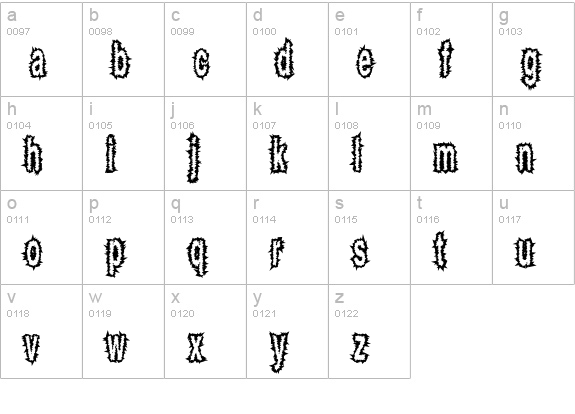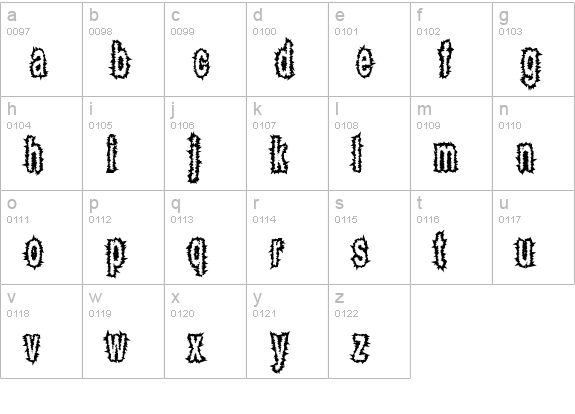
ShockThick Font Details
Introducing ShockThick font, a bold and impactful typeface that commands attention with its thick strokes and electrifying presence. This dynamic font is perfect for creating eye-catching headlines, posters, and branding materials that demand to be noticed. With its strong and energetic design, ShockThick is sure to make a lasting impression on any project. Best of all, ShockThick font is available for free download at FontsMarket.com. So whether you're a designer looking to add a powerful element to your work or a creative individual seeking a font that stands out from the rest, ShockThick is the perfect choice. Download it today and unleash the power of this striking typeface in your next design project.